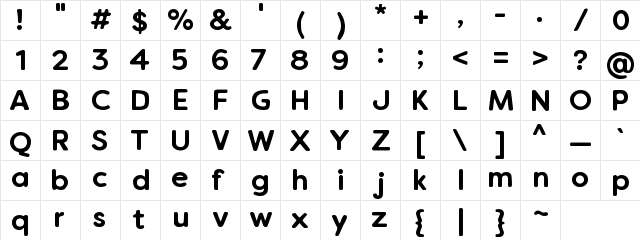
Vanilla Extract Regular
| Designer | Shara Weber |
Design Context for Vanilla Extract Typeface
Vanilla Extract takes a measured approach to typography — its balanced proportions and neutral character make it a reliable workhorse for both digital and print work.
Pro Tip: Use Vanilla Extract in both headline and body roles to test its range before committing to a single application.